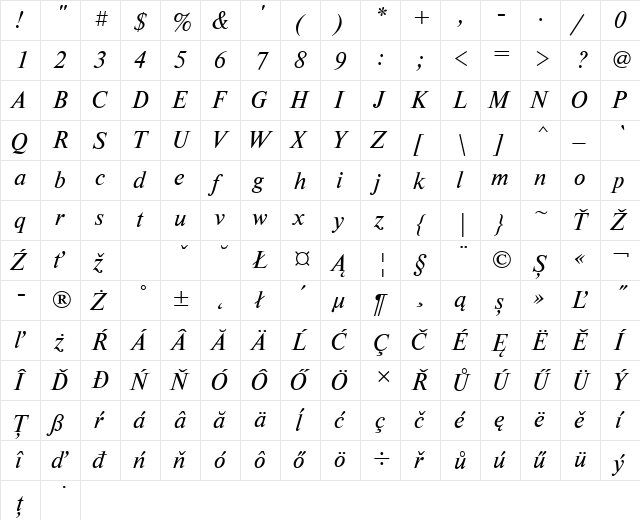
NewtonETT Italic
Design Context for NewtonETT Typeface
NewtonETT takes a measured approach to typography — its balanced proportions and neutral character make it a reliable workhorse for both digital and print work. Its italic angle brings a sense of urgency and motion to the letterforms.